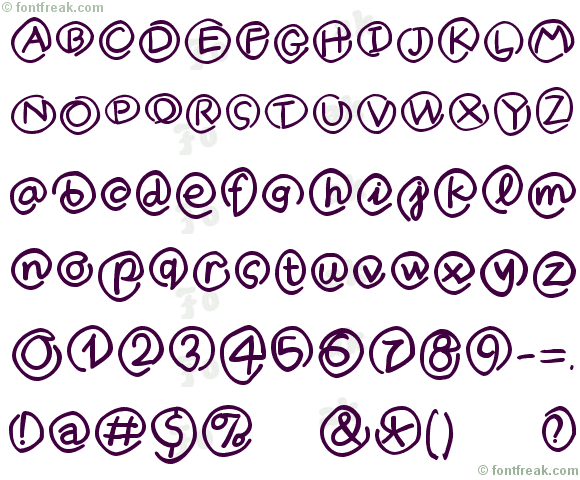
MKlammerAffen-Medium
About MKlammerAffen-Medium
MKlammerAffen-Medium by Manfred Klein is a unique decorative font that stands out with its playful and whimsical character. This font features rounded, slightly irregular letterforms that give it a friendly, approachable vibe. The medium stroke weight offers a balanced appearance, while the subtle contrast between thick and thin lines adds visual interest. The spacing between characters is generous, allowing for easy readability while maintaining the font's charming personality. The playful curves and loops in the letters evoke a sense of creativity and fun, making it an excellent choice for various design applications.
This font is ideal for use cases such as children's book covers, where its playful nature can engage young readers. It's also perfect for greeting cards, especially for occasions like birthdays or celebrations, where a light-hearted touch is desired. Additionally, MKlammerAffen-Medium works well in restaurant menus, adding a touch of creativity to the dining experience. Content creators can leverage this font in social media graphics, ensuring their posts stand out in a crowded feed. Graphic designers will find this font particularly useful for projects that require a touch of whimsy and personality.
What sets the MKlammerAffen-Medium font apart is its unique blend of playfulness and readability, providing a perfect balance for both professional and creative endeavors. Its distinctive style and versatility make it a valuable addition to any designer’s font collection, enabling them to communicate messages with charm and creativity.